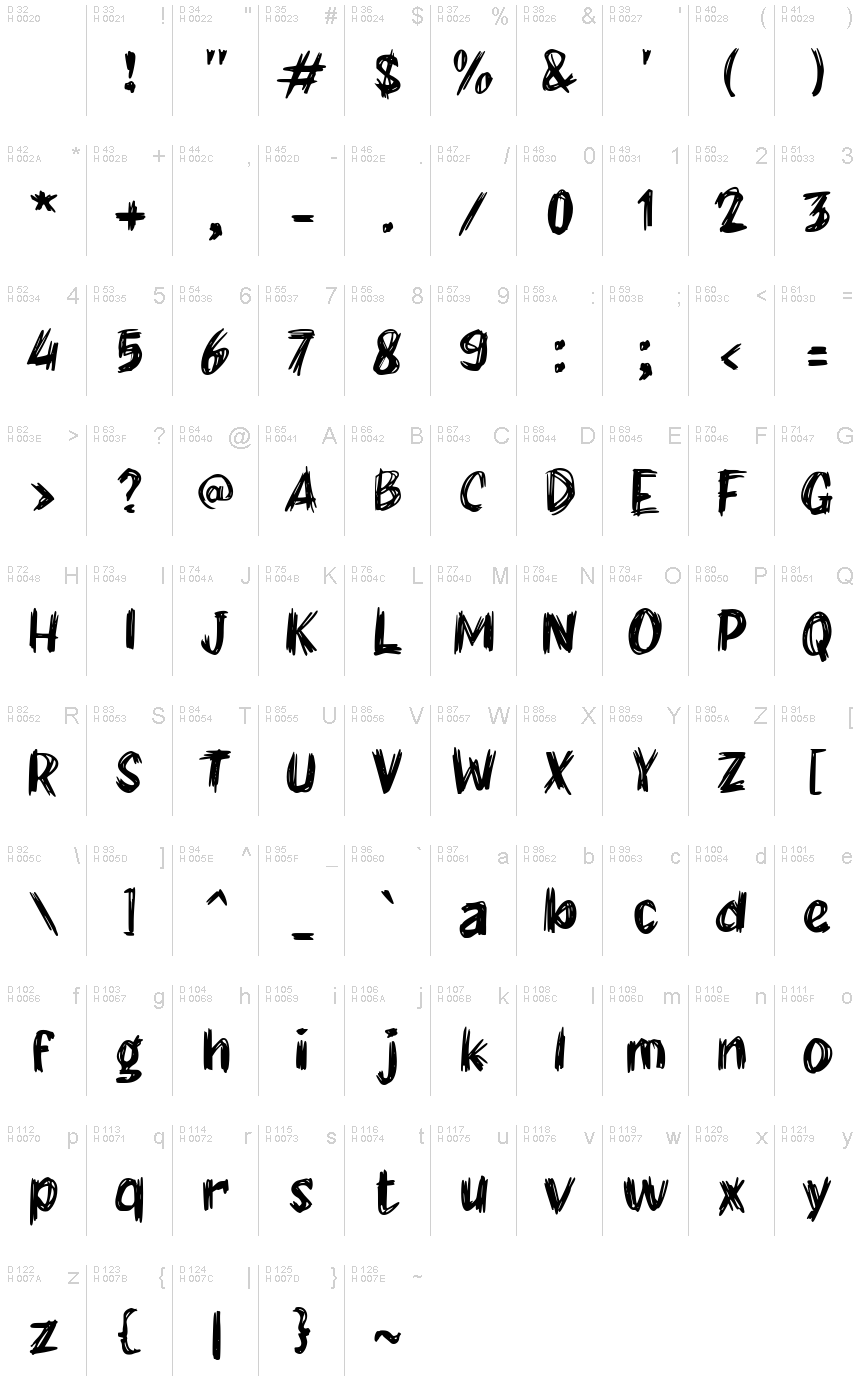
Far Alone stands out with its bold, trash script style that evokes a sense of raw energy and rebellious spirit. The font's handcrafted appearance gives it a personal touch, while the deliberate imperfections suggest an edgy and gritty aesthetic. Its assertive presence commands attention, making it an ideal choice for projects that aim to break away from the conventional and make a strong visual statement.
The font's robust character makes it particularly suitable for music industry graphics, especially within genres like punk or grunge. It is also apt for underground event posters, edgy fashion branding, or any artistic endeavor that benefits from a touch of urban decay or street art influence. Far Alone is a distinct choice when the goal is to convey authenticity and attitude in visual communication.